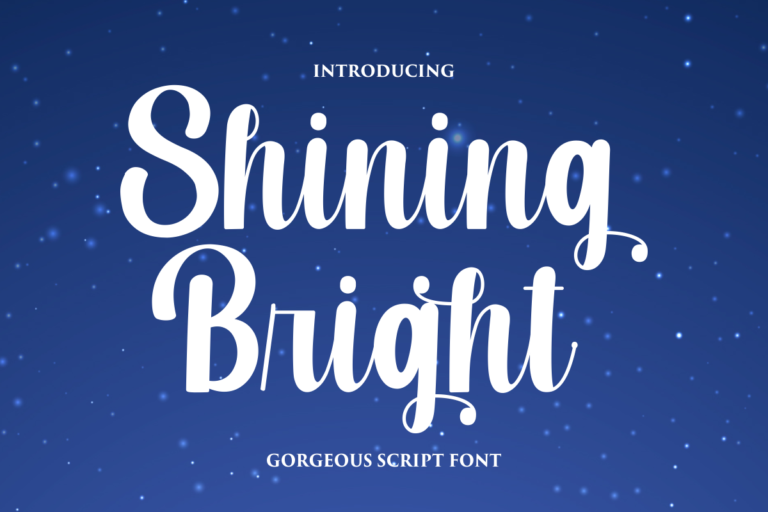
Shining Bright
Shining Bright – Font is a Gorgeous script font. It’s perfect for logo,branding, tittle, social media posts, advertisements, product packaging, product designs, label, photography, watermark, special event,magazine,web design,etc.
Features :
Shining Bright ( Uppercase, Lowercase )
Contextual alternates
ss01
Stylistic alternate
Ligatures
Multilingual Support